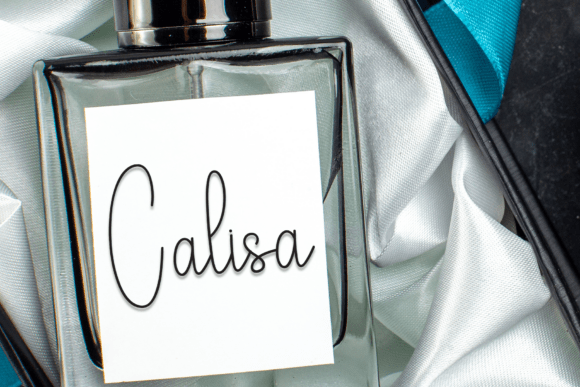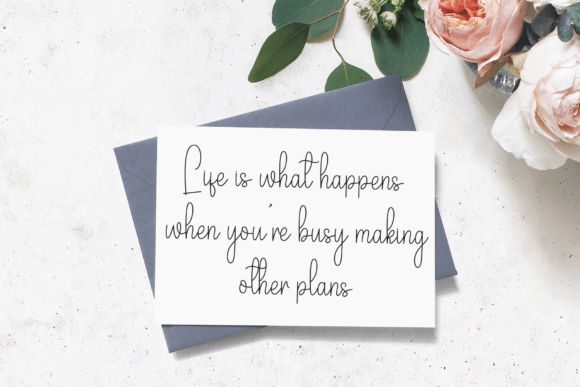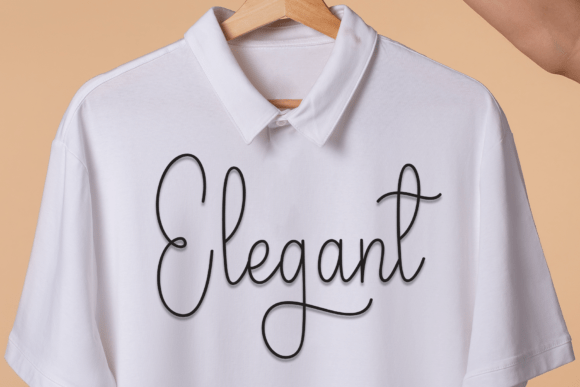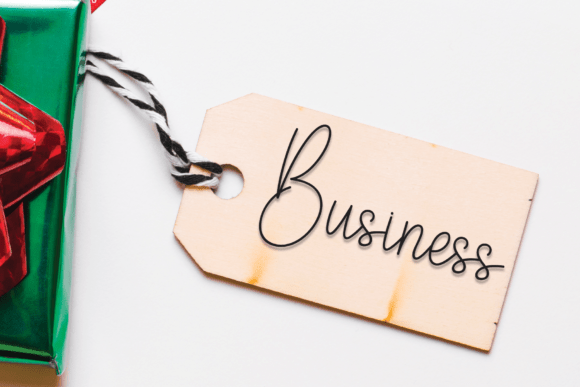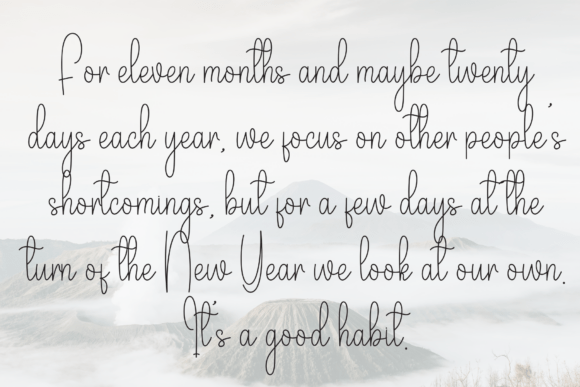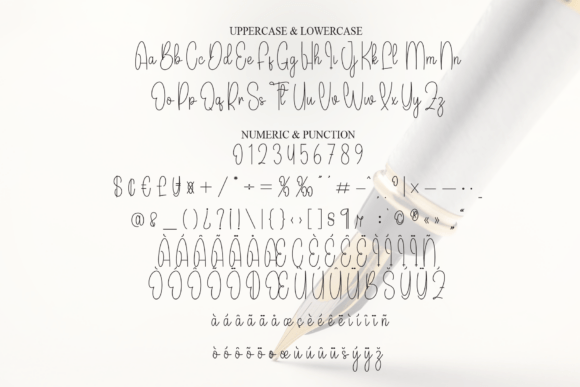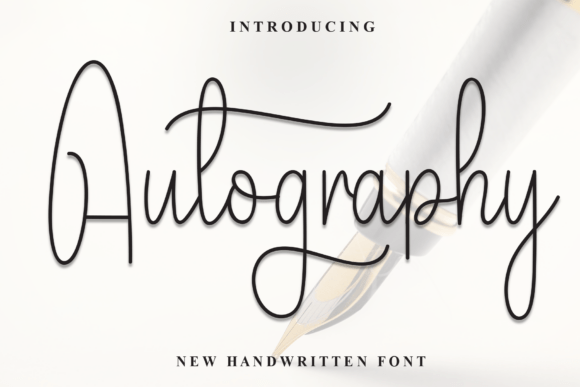
Introducing Autography Font: Elevate Your Designs with Elegance and Fluidity
In the world of typography, few fonts manage to strike a balance between elegance, fluidity, and modernity. Autography Font is one such exceptional typeface that embodies these qualities, making it an ideal choice for designers and crafters looking to add a touch of sophistication to their projects. In this article, we’ll delve into the features, benefits, and uses of Autography Font, and explore how it can elevate your designs to new heights.
What is Autography Font?
Autography Font is a stylish handwritten script font that exudes elegance and fluidity. Its smooth, flowing strokes create a natural and sophisticated feel, perfect for a wide range of applications, from branding and invitations to creative projects and digital media. With its graceful balance of charm and modernity, Autography Font adds a personal, artistic touch to any design, making it stand out from the crowd.
Key Features of Autography Font
- Elegant and Fluid Strokes: Autography Font boasts smooth, flowing strokes that give it a natural and sophisticated appearance.
- Handwritten Script Style: The font’s handwritten script style adds a personal and artistic touch to any design.
- Balanced Charm and Modernity: Autography Font strikes the perfect balance between charm and modernity, making it suitable for a wide range of applications.
- High Versatility: The font is highly versatile and can be used for various design projects, including branding, invitations, and creative projects.
Benefits of Using Autography Font
So, why should you choose Autography Font for your design projects? Here are some benefits that make it an excellent choice:
- Adds Sophistication and Elegance: Autography Font adds a touch of sophistication and elegance to any design, making it perfect for high-end branding and luxury projects.
- Creates a Personal Connection: The font’s handwritten script style creates a personal connection with the reader, making it ideal for invitations, greeting cards, and other personal projects.
- Versatile and Adaptable: Autography Font is highly versatile and can be used for various design projects, from digital media to print materials.
- Easy to Read and Understand: The font’s smooth, flowing strokes make it easy to read and understand, even at small sizes.
Uses of Autography Font
Autography Font is a highly versatile typeface that can be used for a wide range of design projects, including:
- Branding and Logo Design: Use Autography Font to create elegant and sophisticated brand identities that stand out from the competition.
- Invitations and Greeting Cards: Add a personal touch to your invitations and greeting cards with Autography Font’s beautiful handwritten script style.
- Creative Projects: Use Autography Font to add a touch of elegance and sophistication to your creative projects, such as posters, flyers, and brochures.
- Digital Media: Autography Font is perfect for digital media, including social media graphics, email newsletters, and website headers.
Tips for Using Autography Font
To get the most out of Autography Font, here are some tips to keep in mind:
- Use it Sparingly: Use Autography Font sparingly to add emphasis and create visual interest in your designs.
- Pair it with Other Fonts: Pair Autography Font with other fonts to create a unique and visually appealing typography combination.
- Experiment with Colors and Textures: Experiment with different colors and textures to add depth and interest to your designs.
In conclusion, Autography Font is an exceptional typeface that offers a unique combination of elegance, fluidity, and modernity. Its smooth, flowing strokes and handwritten script style make it perfect for a wide range of design projects, from branding and invitations to creative projects and digital media. With its high versatility, ease of use, and sophisticated appearance, Autography Font is an excellent choice for designers and crafters looking to elevate their designs to new heights.